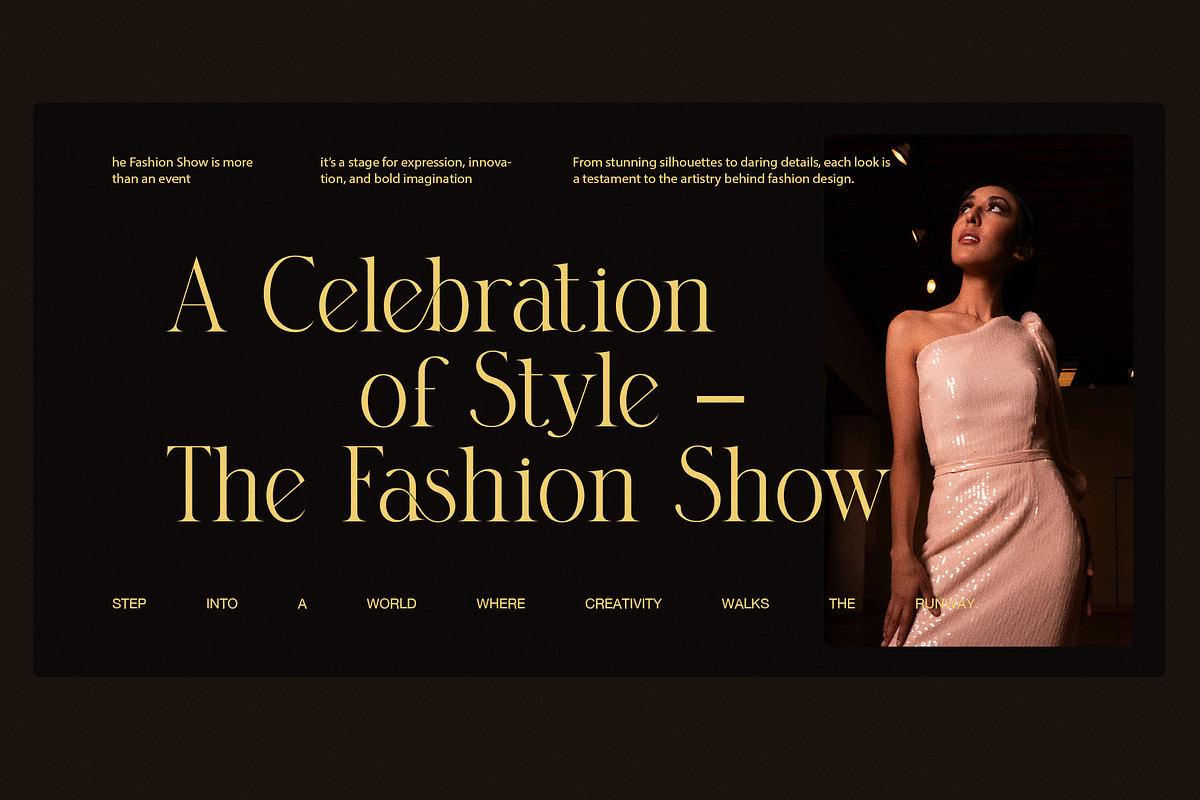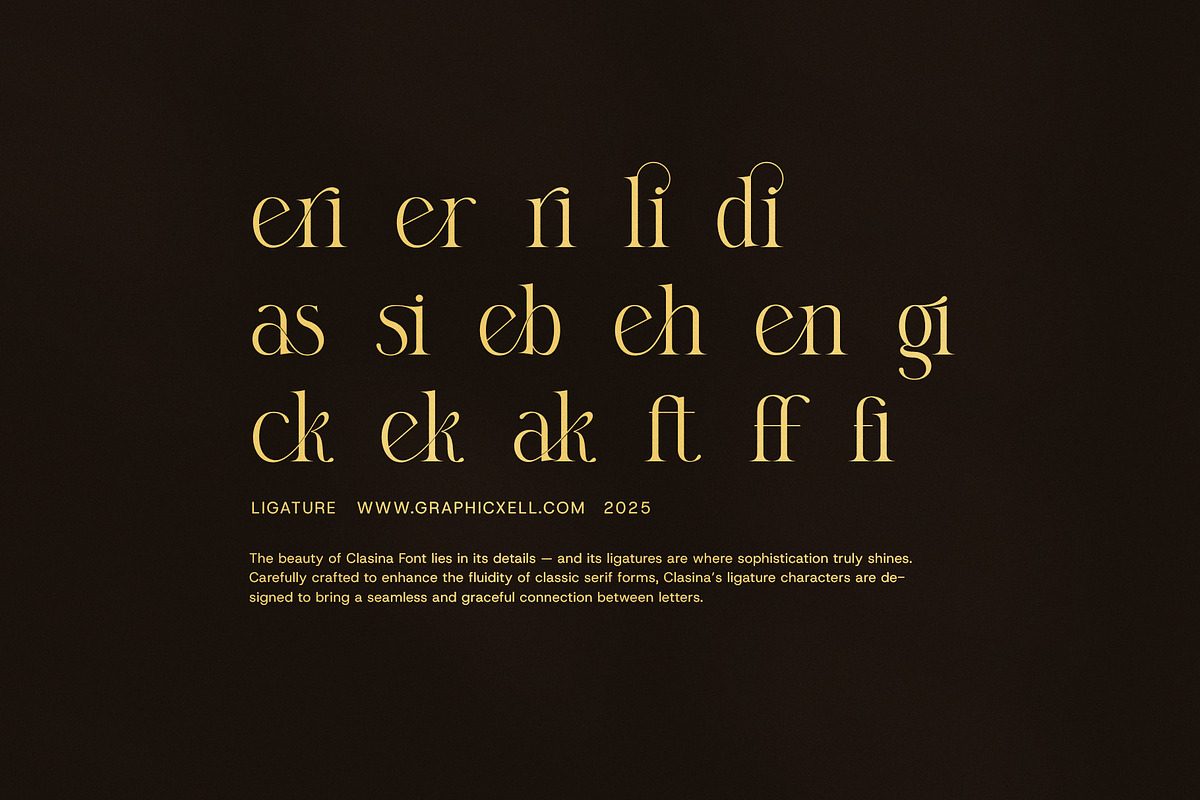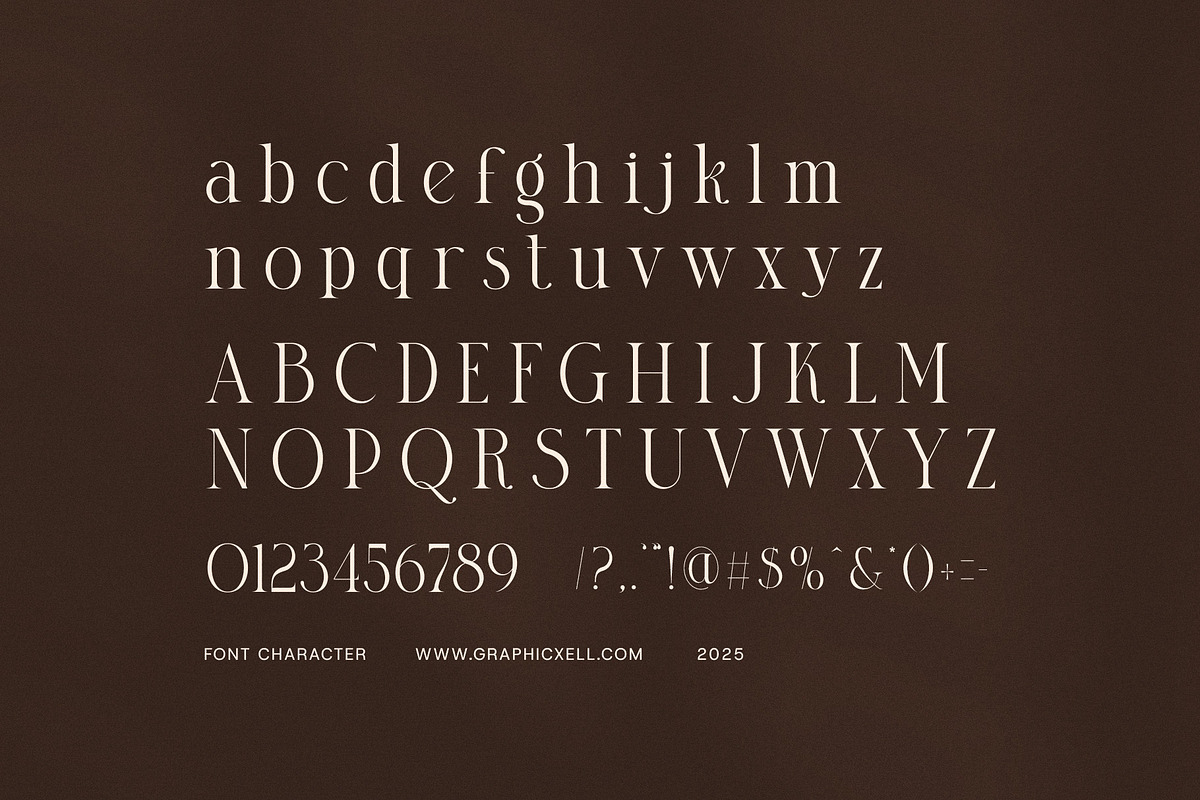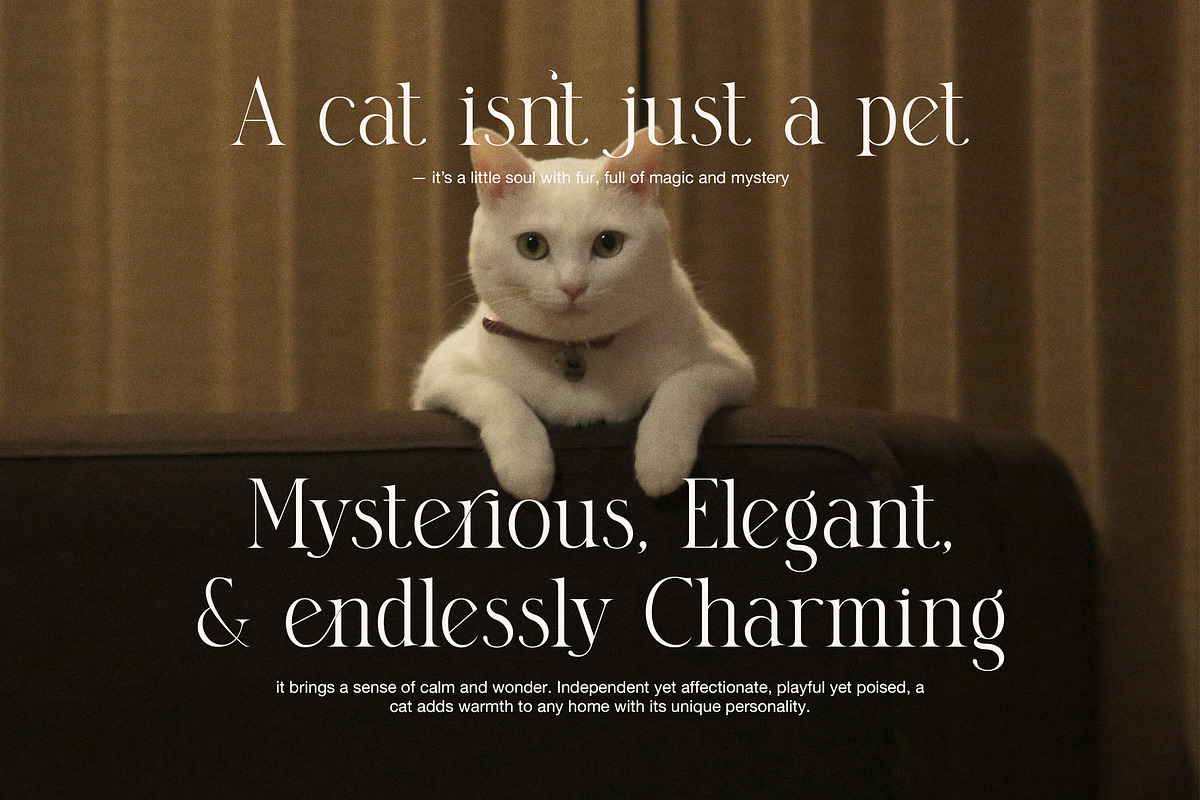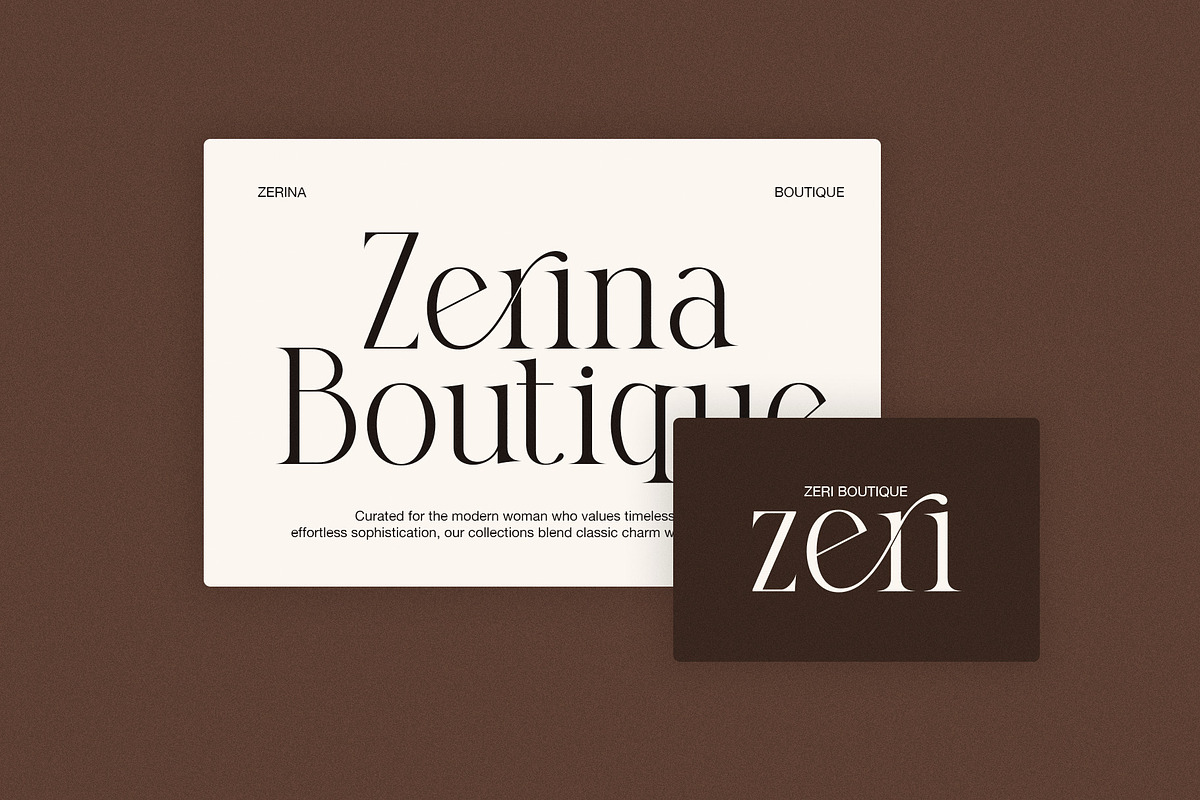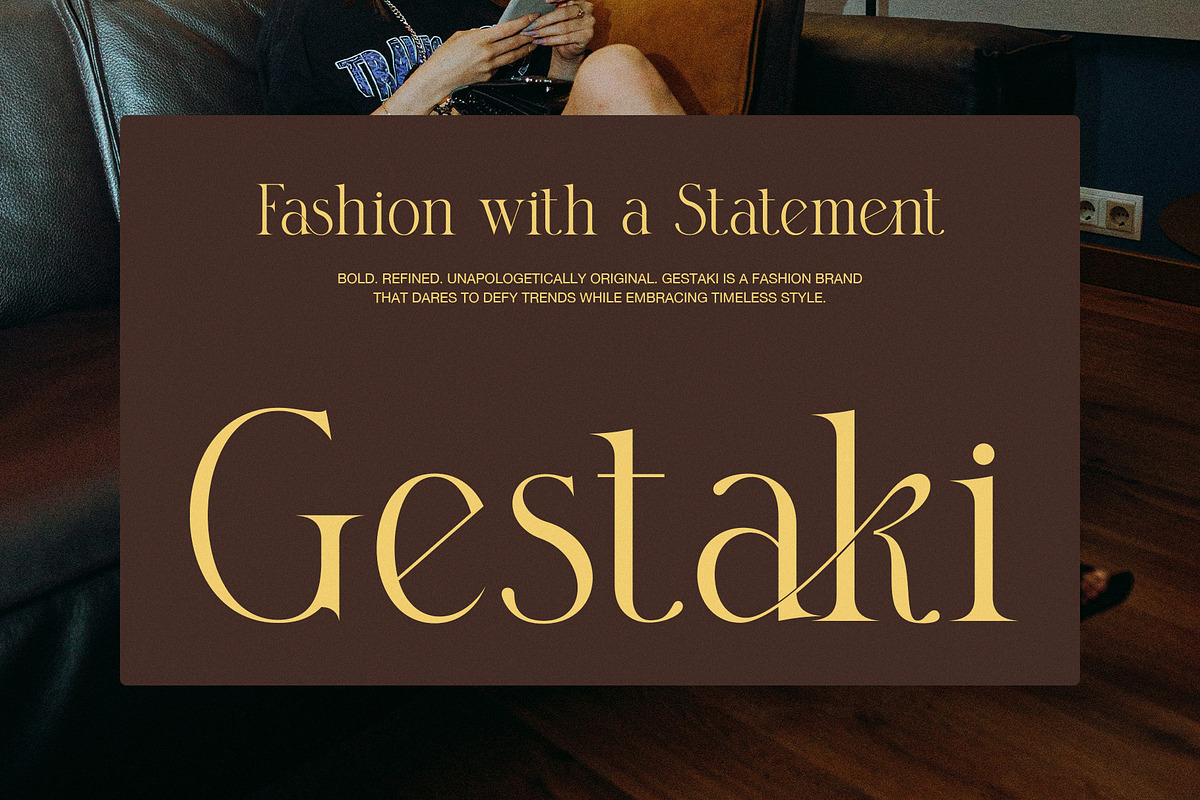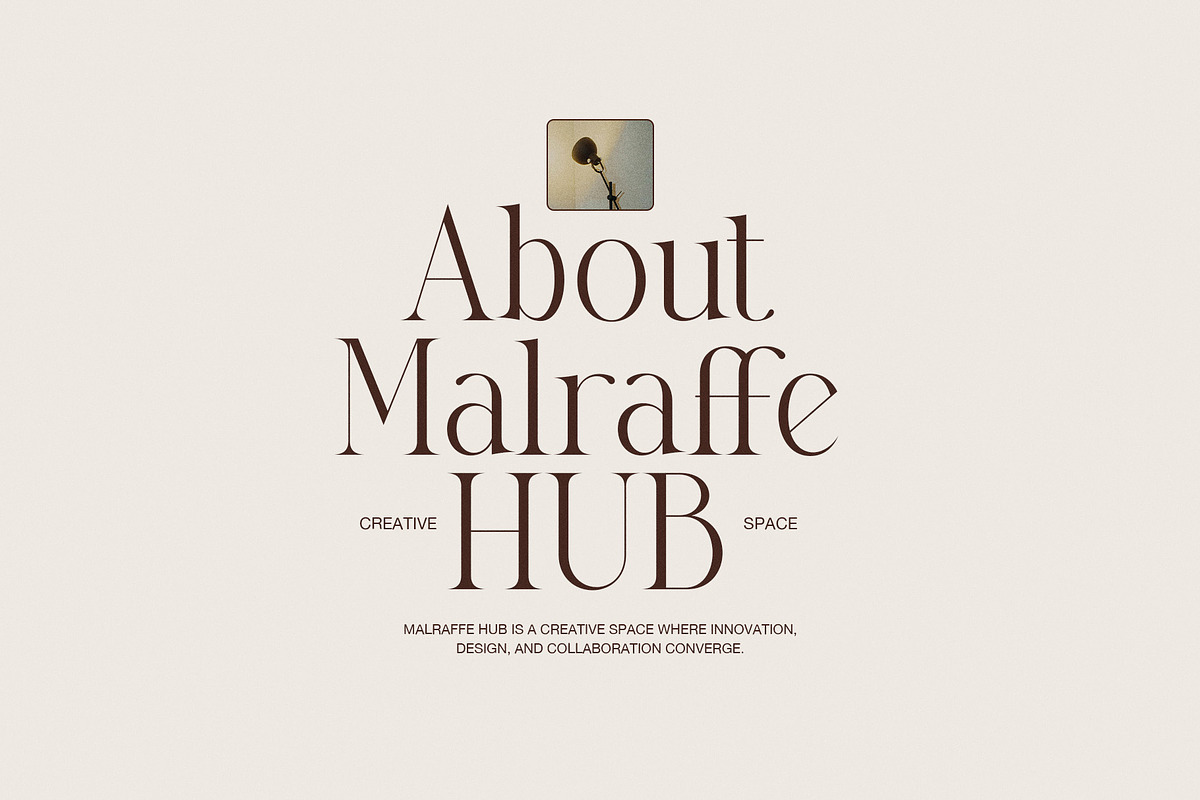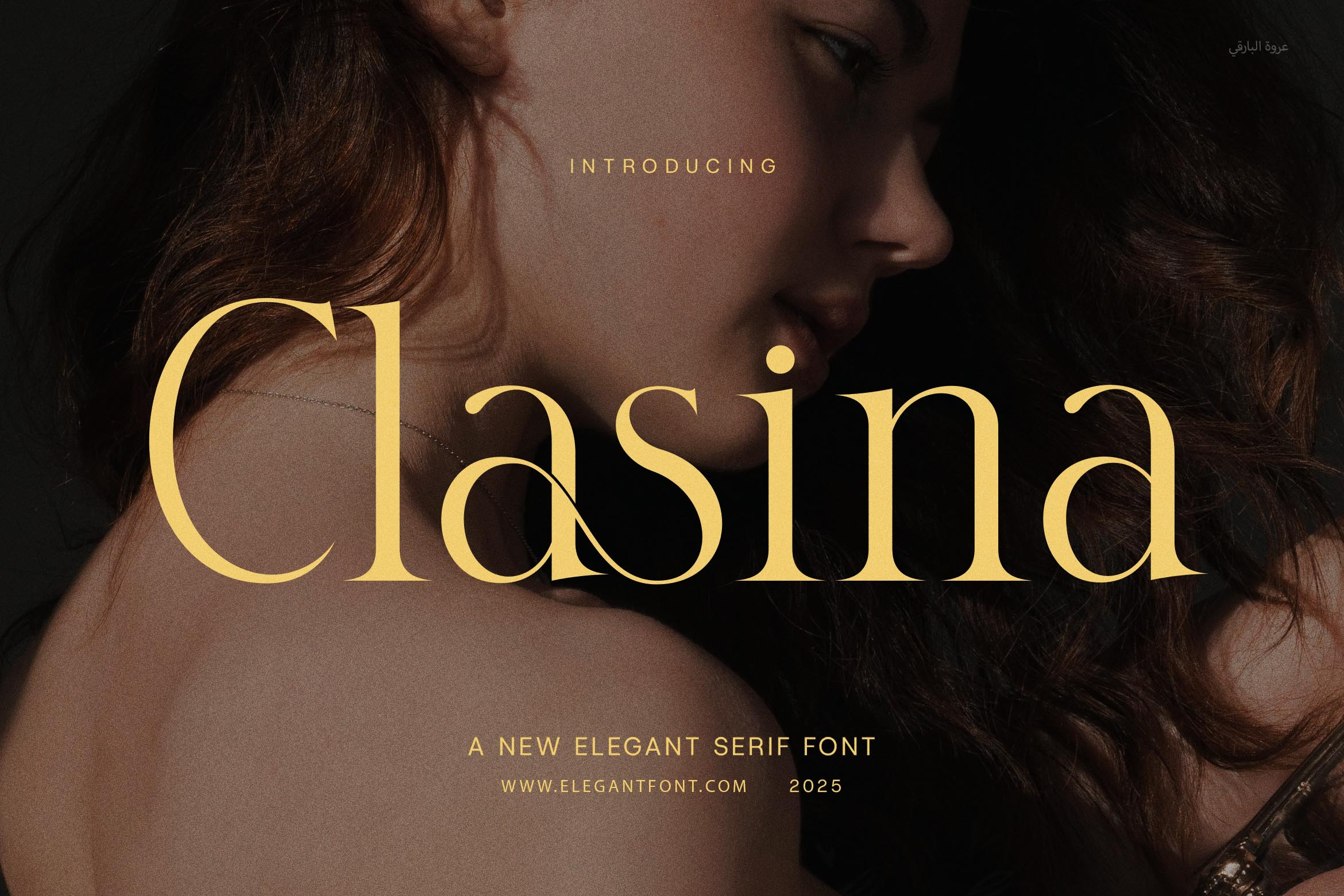
Clasina Elegant Serif Font
Meet Clasina Elegant Serif – a stylish and modern serif font made to bring a classy touch to any design. With clean lines and smooth curves, this typeface blends classic charm with a fresh and modern style. It works well for both digital and print use.
This font is designed with even shapes and sharp details that give your text a bold and polished look. It also includes a set of smart, built-in ligatures that help your words flow in a natural and beautiful way. These special touches add style without being too much.
Clasina is a great choice for many design needs. Whether you're creating a logo, brand identity, website, magazine layout, product label, or ad, this font will make your work stand out. Its strong yet elegant look fits well with luxury brands, fashion, weddings, food packaging, and more.
What Makes Clasina Special?
Modern serif design with smooth, elegant curves
Works great for bold logos and stylish branding
Built-in ligatures for a custom, high-end look
Easy to read in both large and small sizes
Ideal for both print and web projects
Comes with uppercase, lowercase, numbers, and symbols
Carefully spaced for clean and easy layout
Stylish, but not overdone – keeps the focus on your message
Pairs well with both sans-serif and script fonts
Perfect for brands that want to feel premium and professional
If you're looking for a font that brings a touch of class to your designs, Clasina Elegant Serif is the right choice. It's clean, flexible, and full of character – ready to help your work shine.**